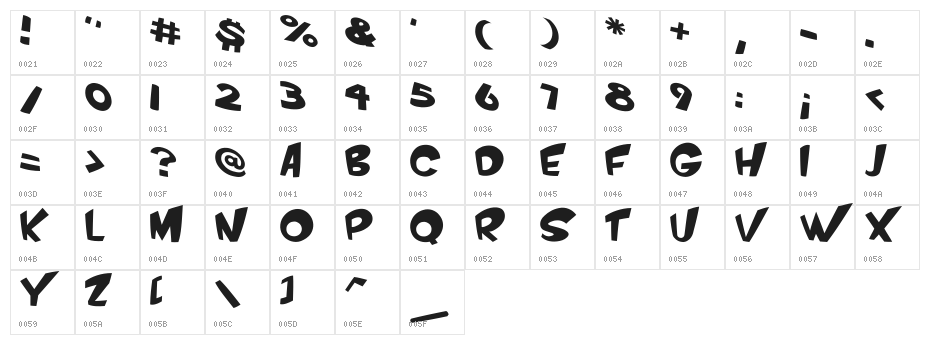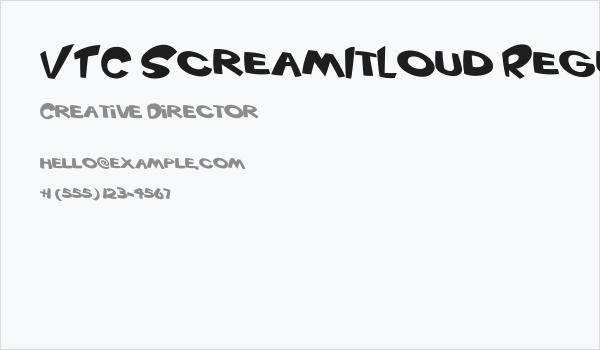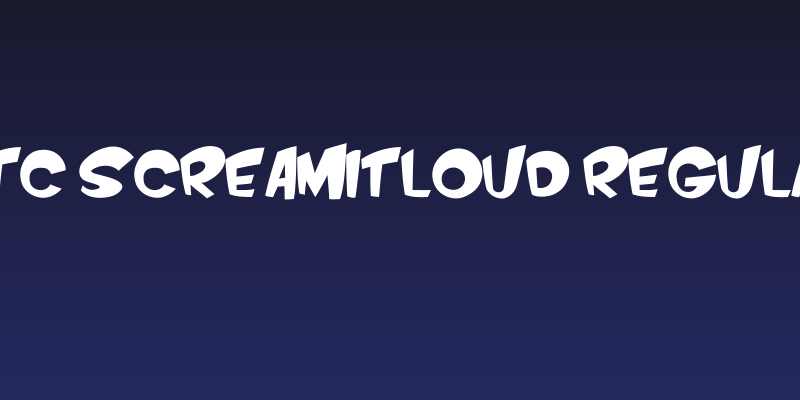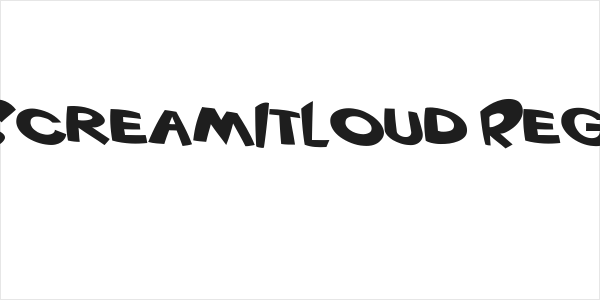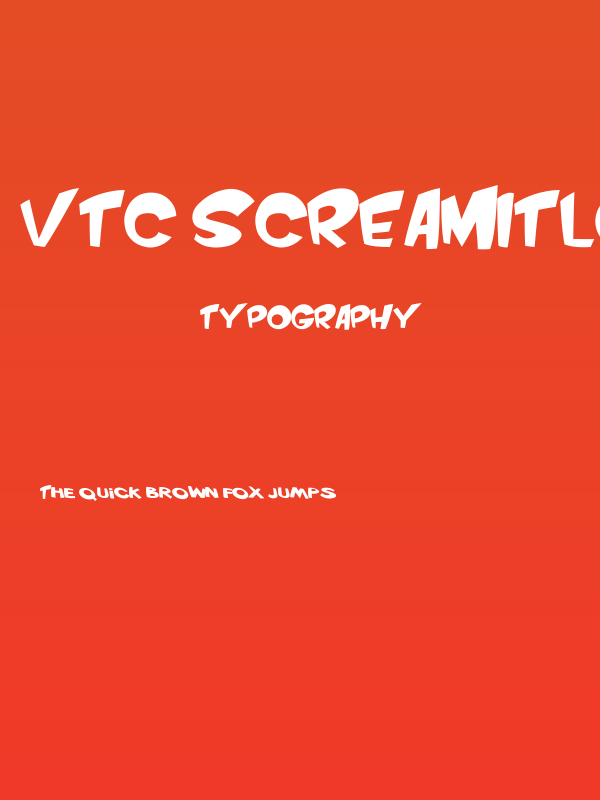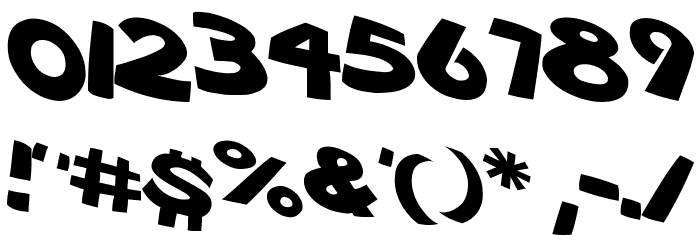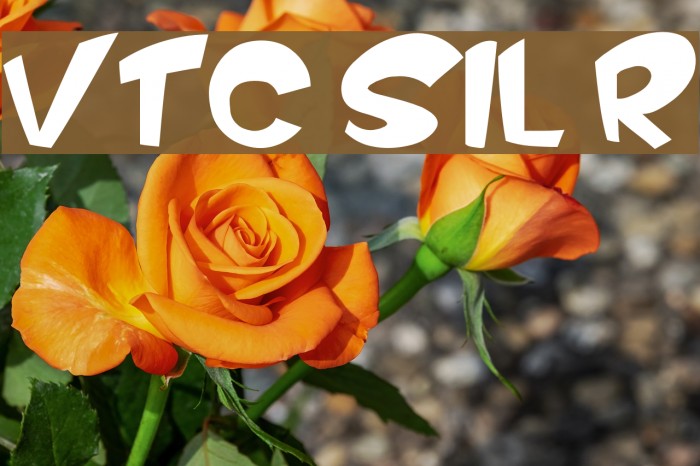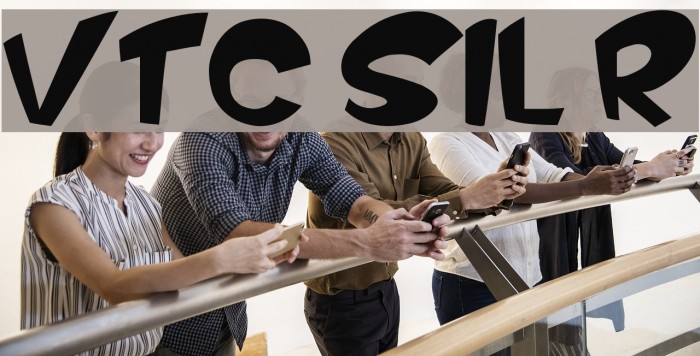
VTC ScreamItLoud Regular Font
VTC ScreamItLoud Regular Description
This font features a bold and energetic style with exaggerated, playful letterforms. The characters are heavily stylized with a cartoonish flair, making them ideal for attention-grabbing designs. The uppercase and lowercase letters maintain a consistent, dynamic rhythm, while the numbers and special characters follow the same lively aesthetic. The font's thick strokes and irregular shapes give it a unique, expressive personality that stands out in any design context.
| Proposed Projects | Perfect for comic books, children's posters, playful branding, and eye-catching headlines. |